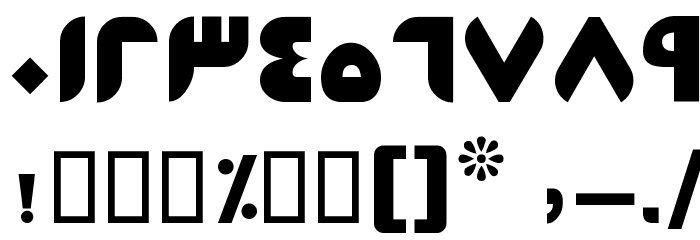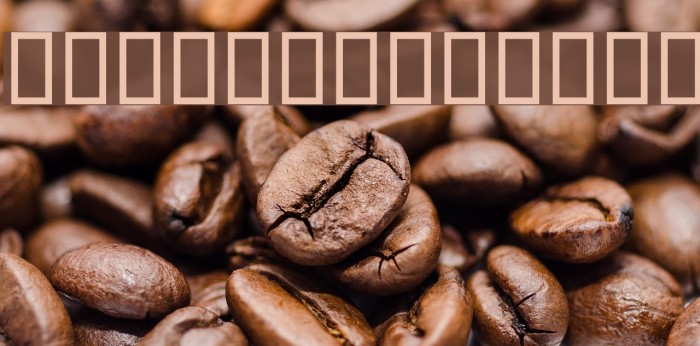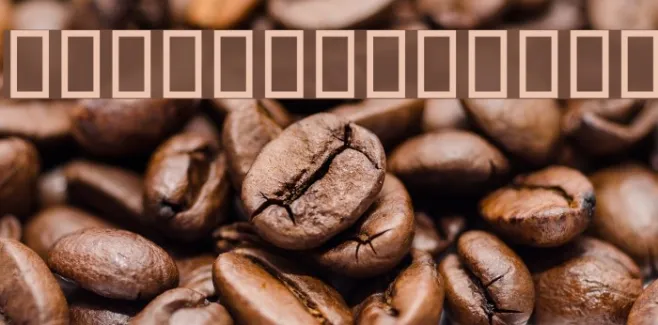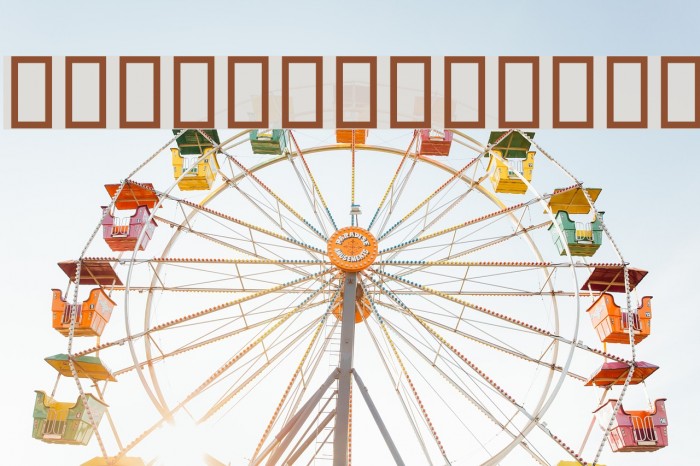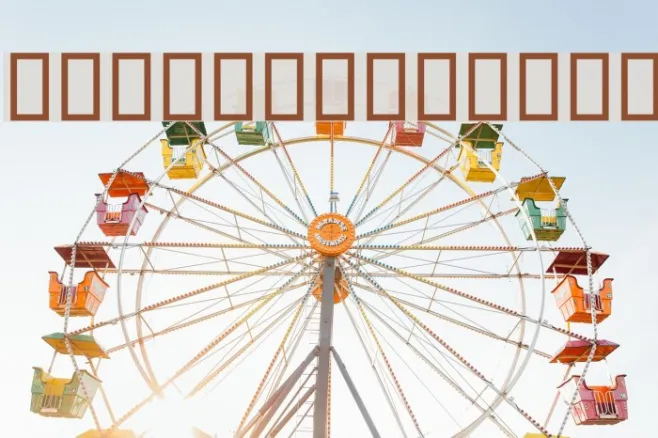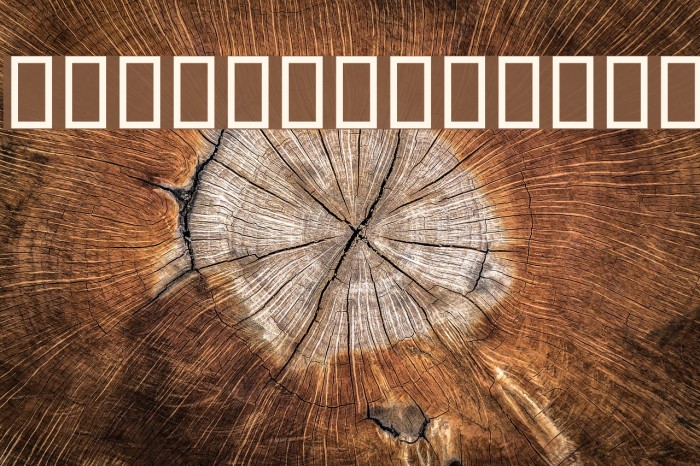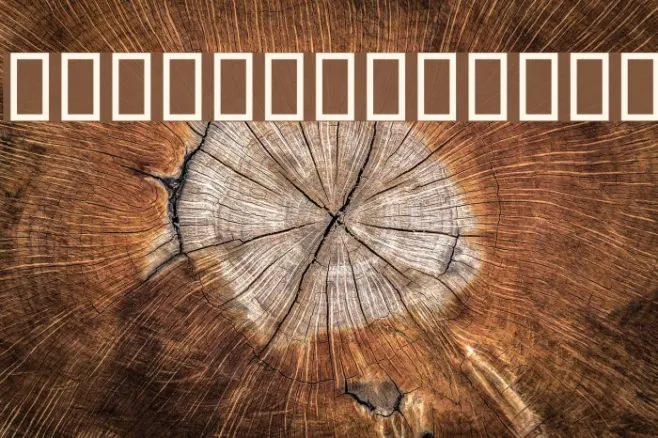
Rajab Font
Rajab Description
This font features a bold and striking design with thick, rounded strokes that give it a modern and futuristic appearance. The characters are wide and have a consistent weight throughout, creating a uniform and cohesive look. The numerals and special characters maintain the same boldness, ensuring they stand out clearly. The overall style is highly decorative, making it suitable for attention-grabbing headlines or branding materials. Its unique aesthetic is both playful and assertive, making it versatile for various creative projects.
| Proposed Projects | Ideal for branding, posters, headlines, and creative design projects that require a bold statement. |